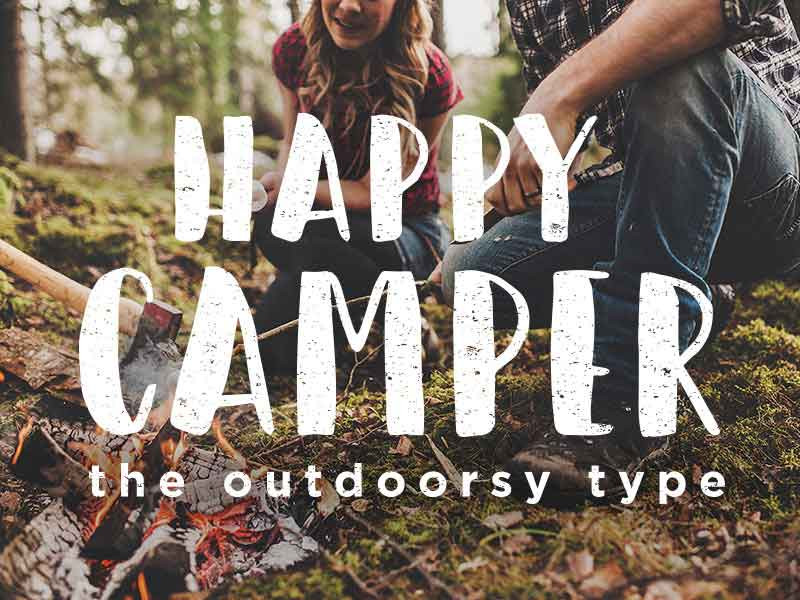
Happy Camper Font
Happy Camper – Free Font
Happy Camper is a brush lettered typeface available free for personal use only. Freebie designed by Erika Fisher.